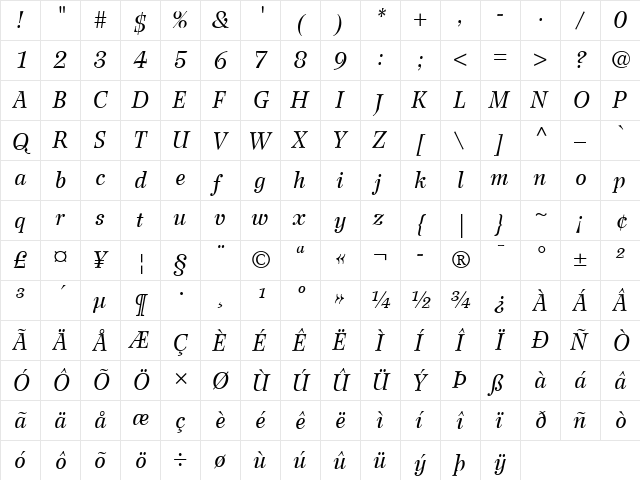
Wilke LT Roman Italic
Design Context for Wilke LT Roman Typeface
Wilke LT Roman is a composed and adaptable typeface that performs quietly and consistently across a wide range of design contexts. Its italic angle brings a sense of urgency and motion to the letterforms. The delicate stroke weight brings airiness and refinement to layouts.
Pro Tip: Try Wilke LT Roman for annotation and caption copy alongside an upright companion — the contrast in angle creates a dynamic but ordered typographic system.